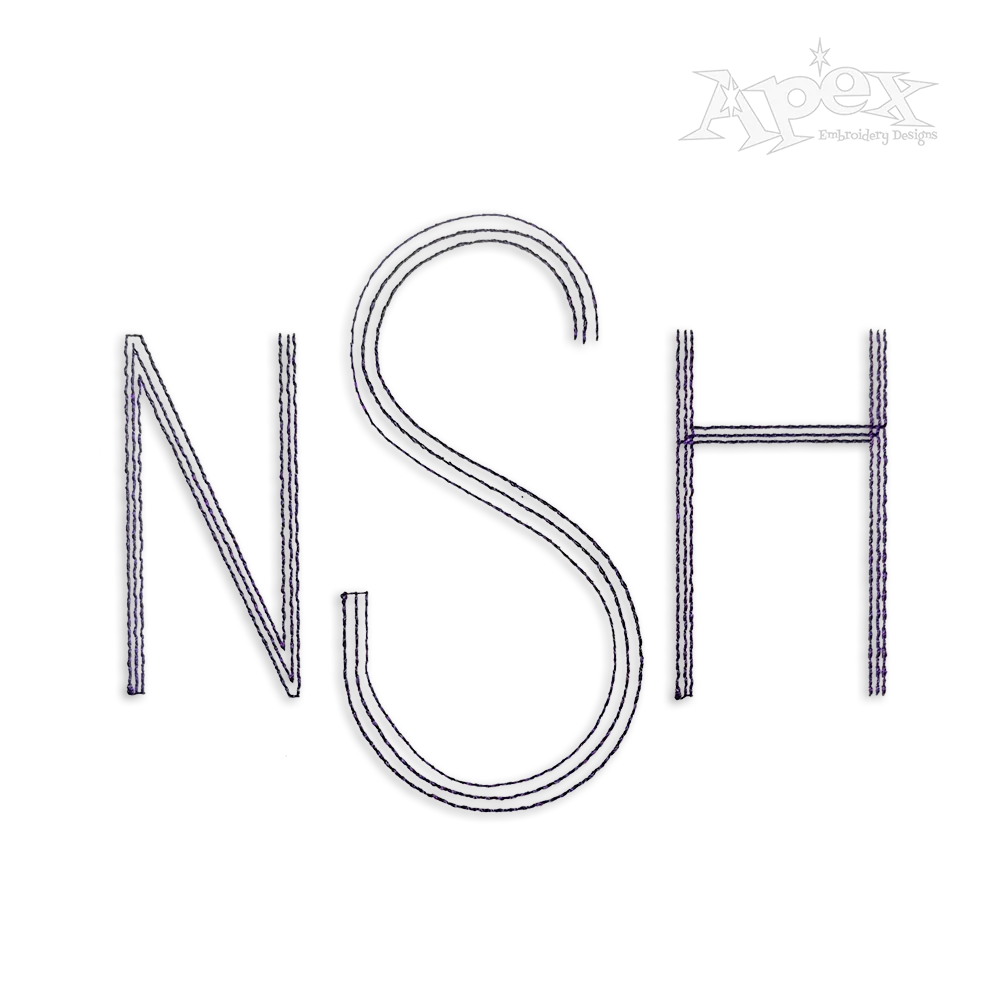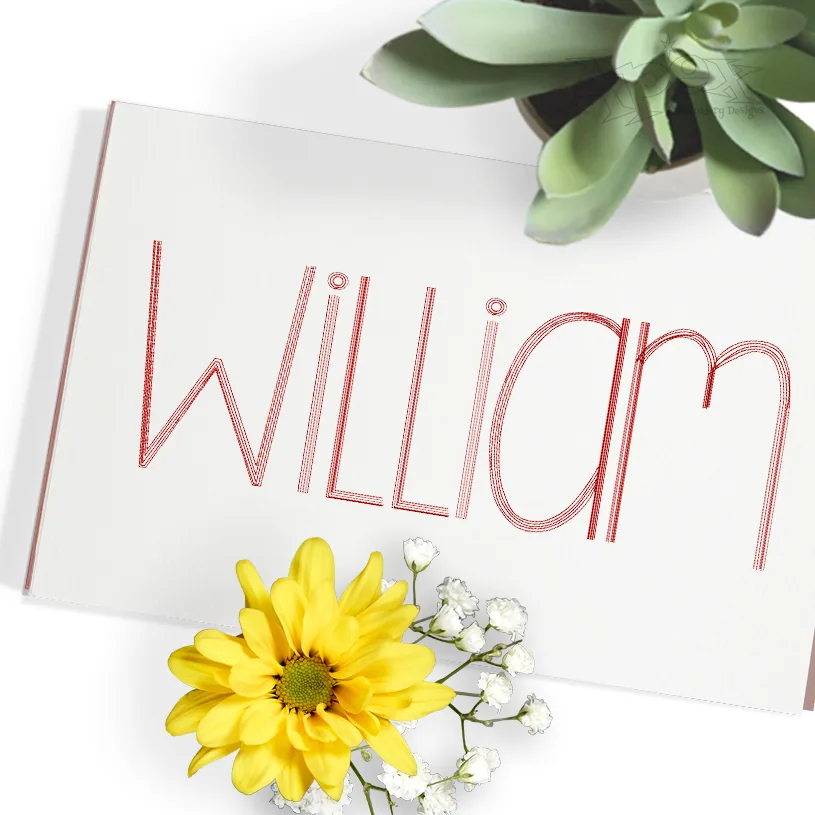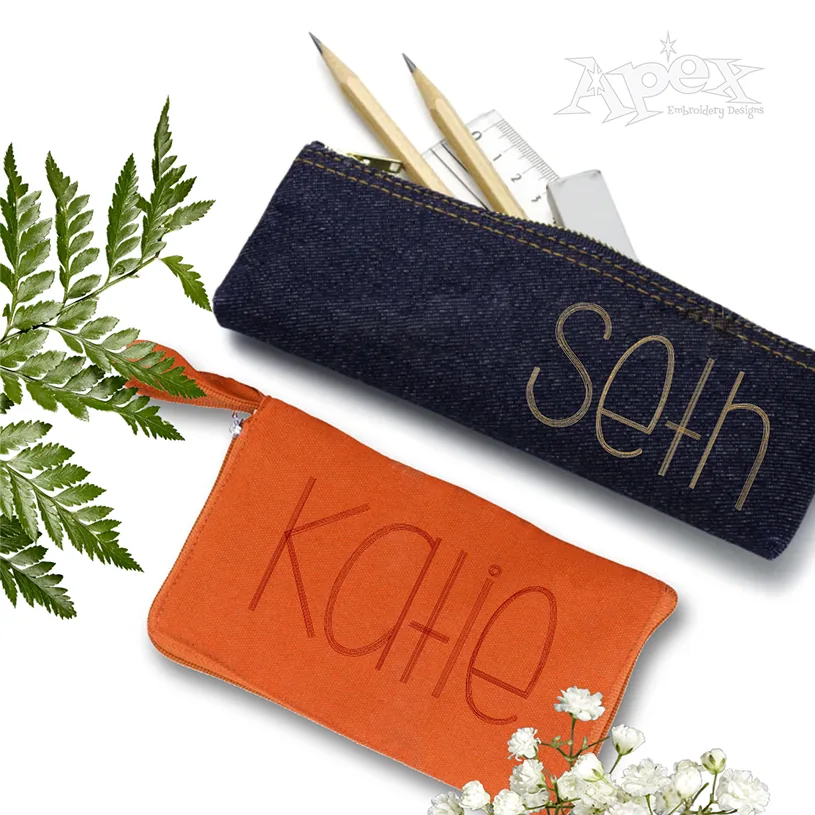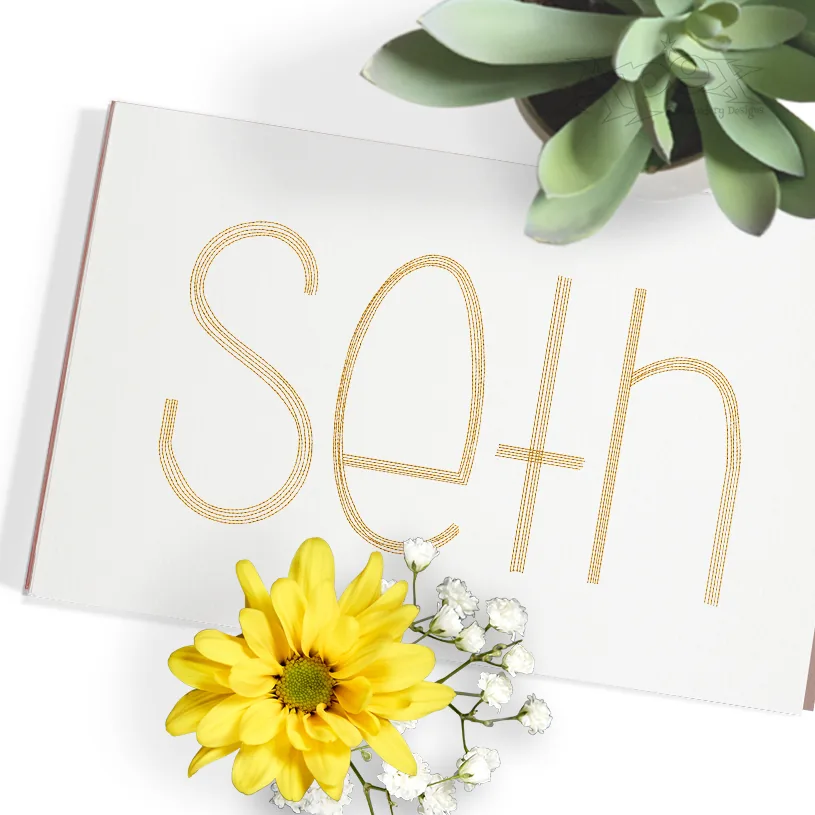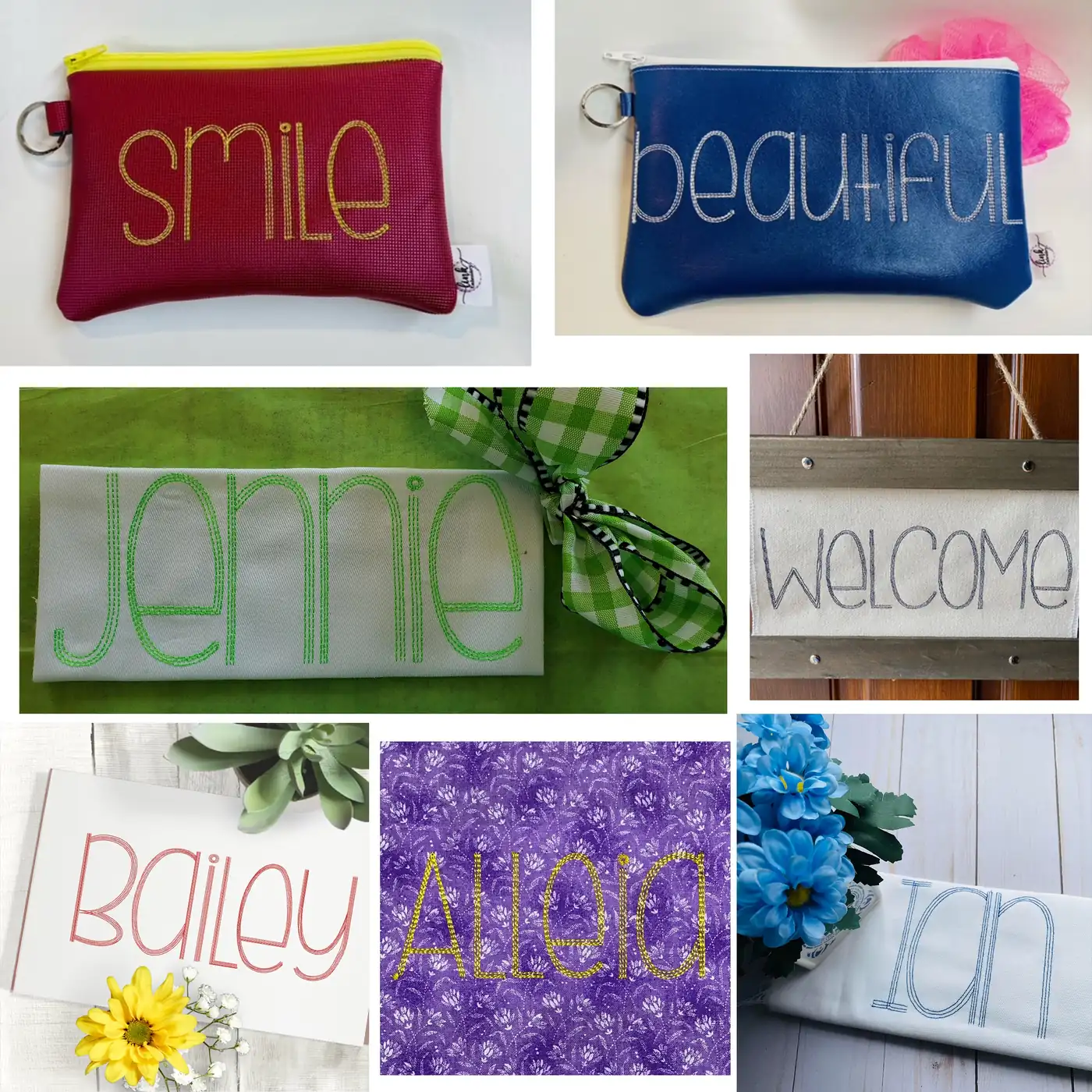
Bradford Scribble Sketch Embroidery Font
There is an effortless, kinetic beauty in the quick strokes of an artist’s drafting pencil, where lines overlap with deliberate freedom and vibrant texture. When digitizing the Bradford Scribble Sketch Embroidery Font, our vision was to translate that airy, architectural sketch aesthetic into the world of luxury machine embroidery. Moving beyond rigid solid fills, Bradford embraces light and shadow through layered, crisscrossing needle paths that feel both couture and casually refined, lending custom monogramming projects a relaxed yet impeccably curated elegance.
Digitized with precision to preserve the open, textured nature of the hand-drawn effect, this complete typography suite provides exceptional versatility across projects of every scale:
Project Ideas for Bradford Scribble Sketch
The textured, lightweight structure of the sketch-fill style makes Bradford remarkably adaptable to delicate fabrics that might otherwise buckle under heavy stitch counts, as well as bold lifestyle accessories:
- Linen Cocktail Napkins & Table Linens: Stitch a crisp, single-letter initial angled across the corner of natural flax napkins for an artfully relaxed dinner party setting.
- Bespoke Resort Wear: Enhance relaxed linen button-downs, popover collars, or swim cover-ups with casual monogramming that drapes naturally with the garment.
- Heirloom Nursery Blankets & Knitwear: Because the fill is light and breathable, it keeps baby blankets, waffle robes, and rompers wonderfully soft against sensitive skin.
- Oversized Canvas Weekenders: Use the commanding 4" or 6" sizes across heavyweight canvas tote bags or duffels for high-end boutique branding.
- Bridal Party Gifting: Personalize silk pajama pockets, vanity pouches, or slippers with romantic, sketch-style lettering for wedding weekend keepsakes.
Because Bradford features dynamic open-stitch linework, placement can range from traditional formal positions to creative, off-center focal points:
- Diagonal Corner Hem: For napkins, pocket squares, or tea towels, set the 2" or 3" letter approximately 1.5 to 2 inches from the bottom right point along the diagonal bias.
- Chest Pocket & Left Chest: The 2" and 3" scales nestle perfectly above or directly on shirt pockets, jackets, and sweatshirts, creating a bespoke tailored signature.
- Center Pillow Panel: Position a bold 6" single monogram or family initial centered on a textured decorative throw pillow to create a modern farmhouse or coastal accent.
- Cuff & Hemline Details: The delicate 2" lowercase set or singular uppercase initial adds a subtle, designer-inspired secret monogram along a sleeve cuff or shirt hem.
Bradford Scribble Sketch Craft & Letterform Details
The true craft behind scribble sketch digitizing lies in controlled spontaneity. To replicate genuine pencil crosshatching, we mapped the internal stitch pathways at varying directional angles rather than traditional parallel rows. Clean, defining boundary lines gently anchor each letter's silhouette, while the interior scribbles dance freely within the boundaries, allowing the color and weave of your base fabric to softly show through.
This thoughtful design choice not only minimizes stitch density—ensuring garments retain their natural drape without forming stiff, board-like patches—but it also catches ambient light differently across every single stroke. The result is a tactile, expressive embroidery alphabet that turns everyday personalization into wearable art.